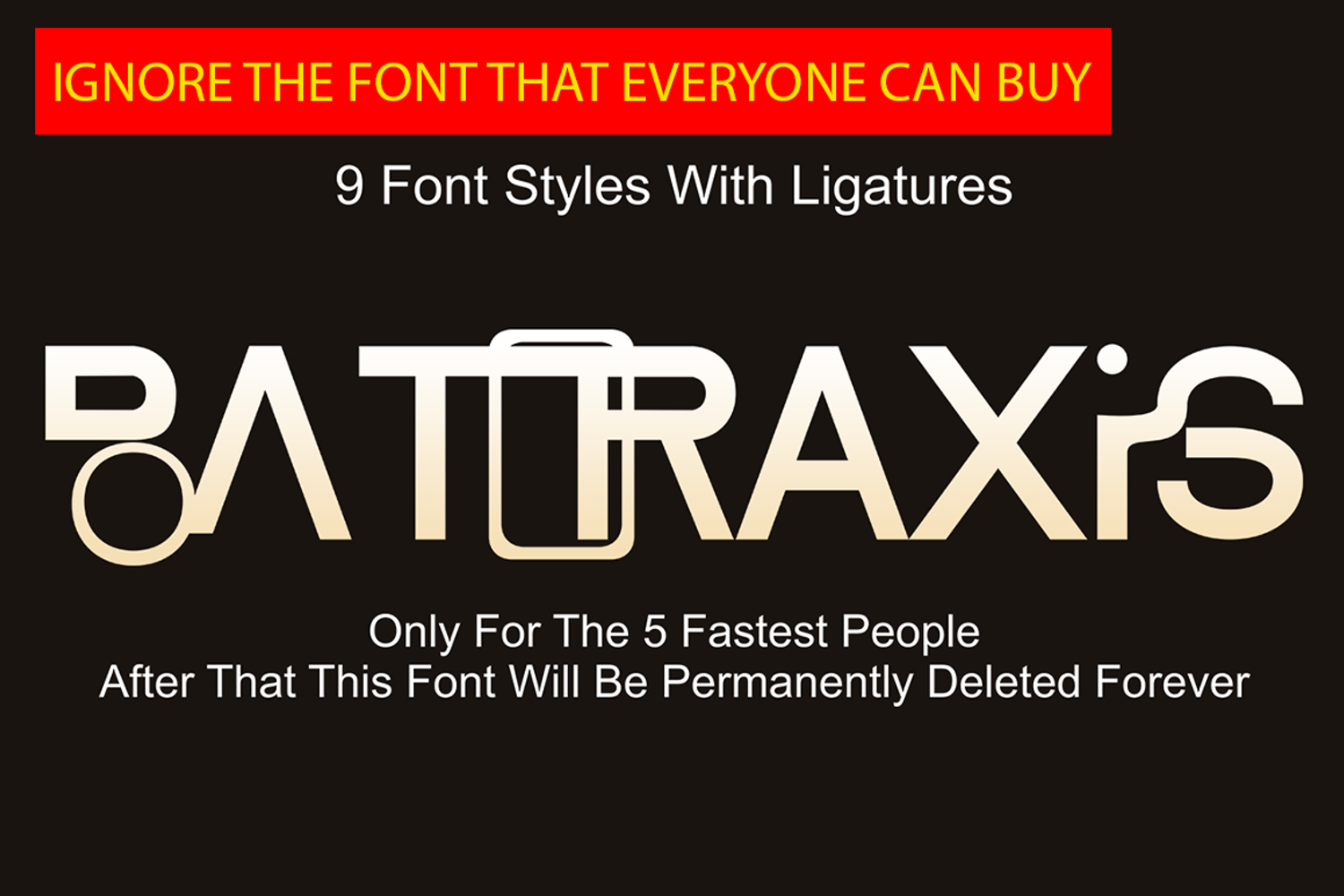
Batoraxis
BATORAXIS is not just a font — it is a forbidden legacy carved from the shadows of forgotten empires. Its name is derived from a classified Byzantine military codename: Bato, meaning “the executioner with a single strike,” and Raxis, “the axis of the world.” First documented in 1047 AD under Emperor Constantine IX, it was known only to five shadow generals whose decisions reshaped the fate of rulers and kingdoms. For centuries, it vanished — until a secret occult expedition in 1938 unearthed its seal beneath the Black Sea, etched into a monolith said to distort the very laws of reality.
BATORAXIS has now been forged into a typographic weapon of elegance and brutality, created for the elite few. This is not like other fonts that anyone can buy — mass-produced, diluted, and stripped of meaning. BATORAXIS is the opposite: rare, untamed, and eternally limited. Anything easily found loses its value. But that which touches only five hands before vanishing forever — becomes a legend.